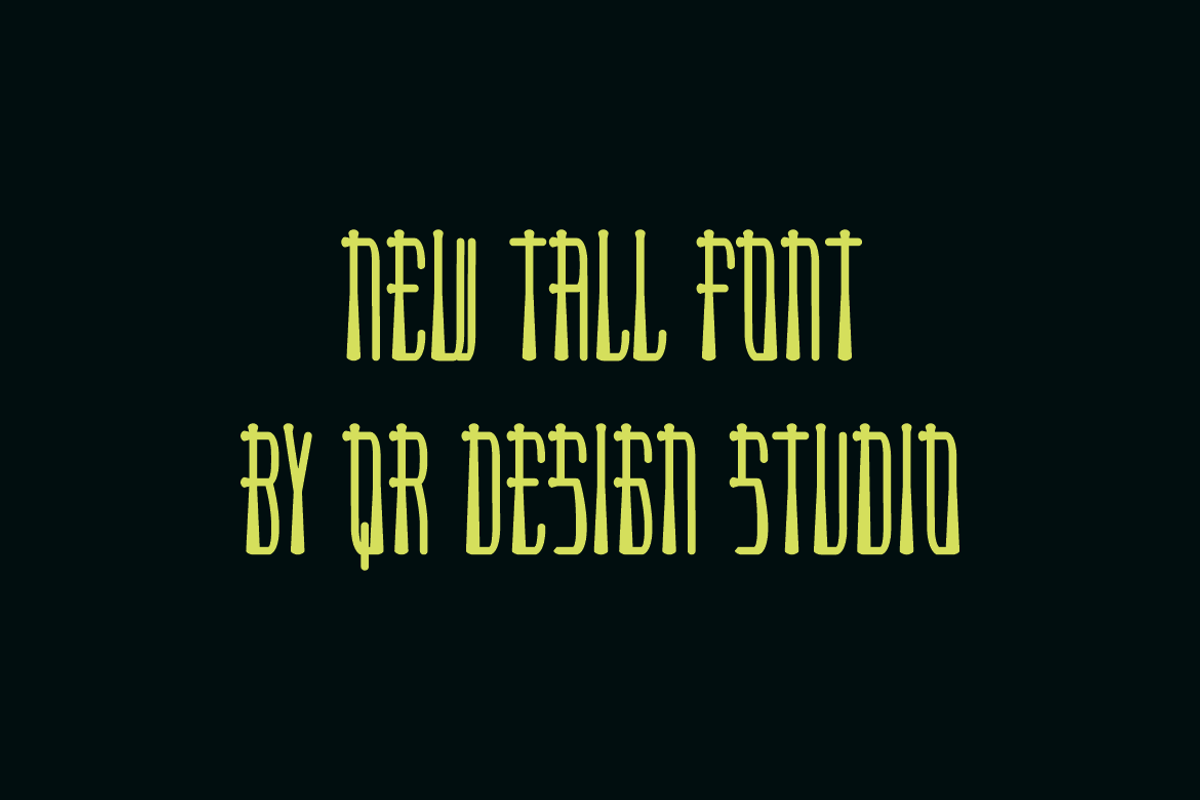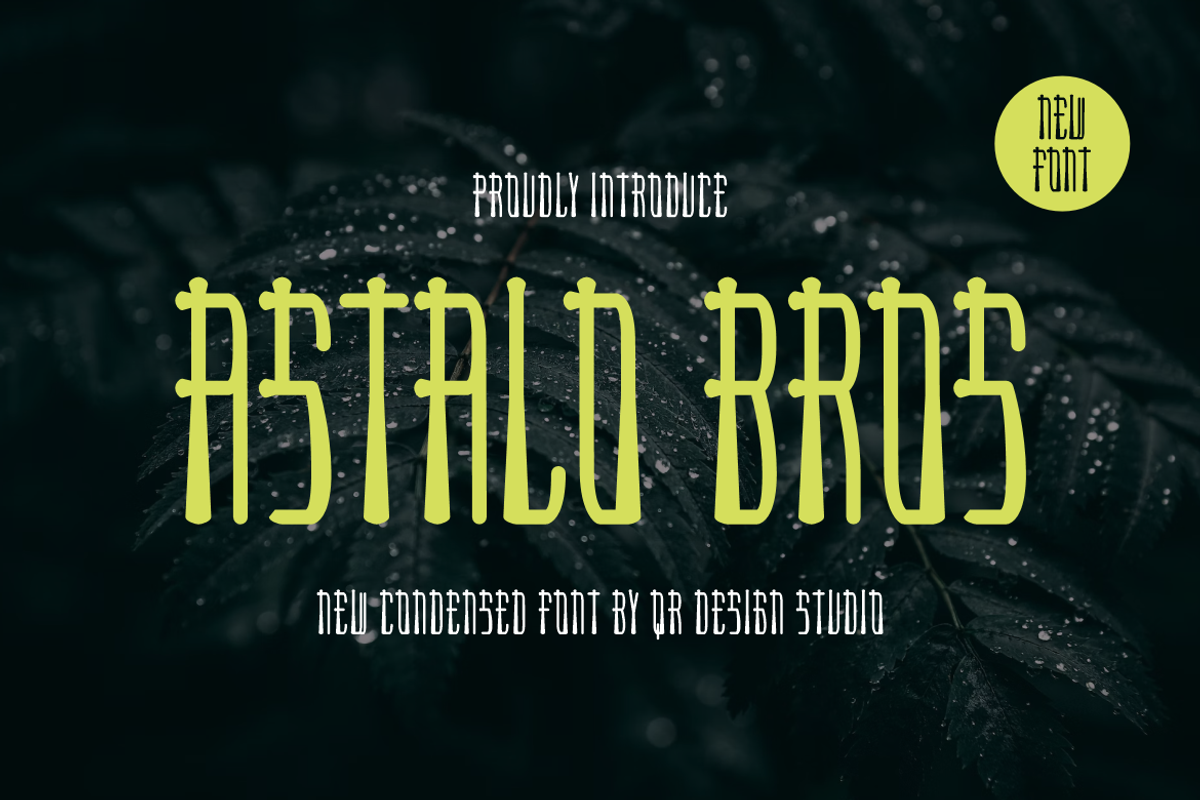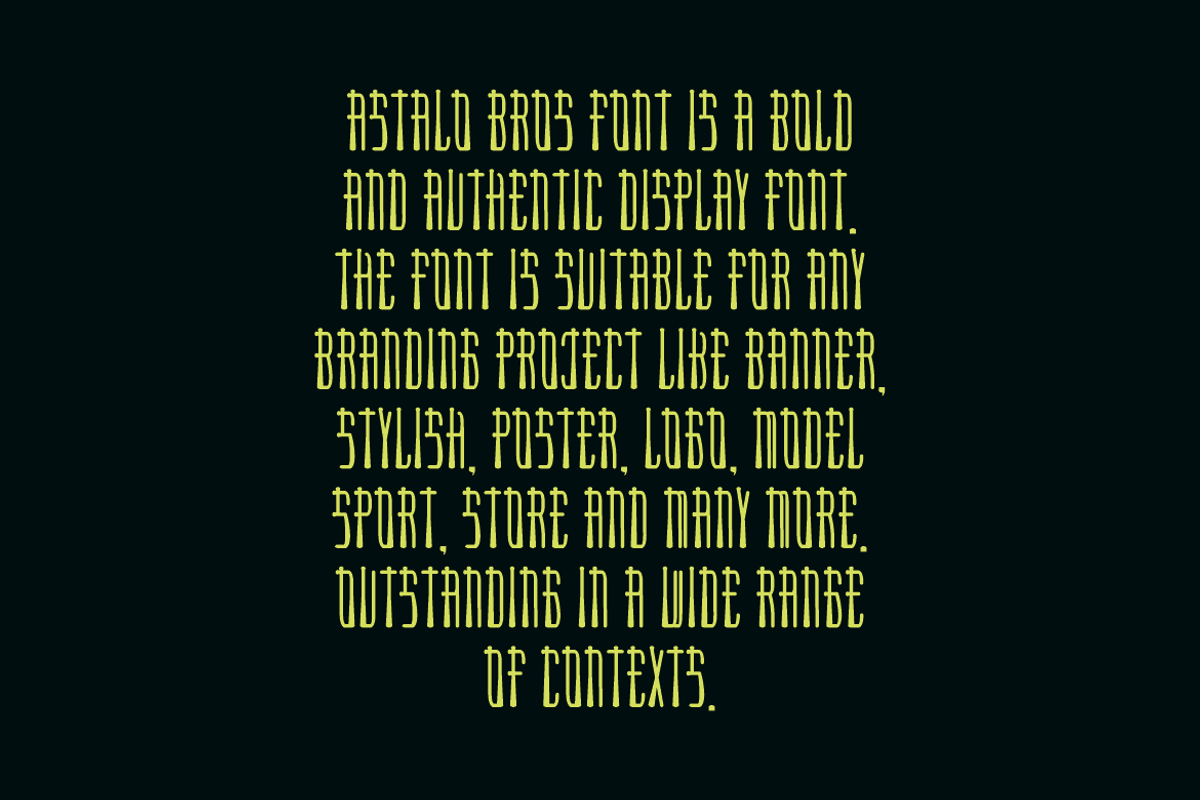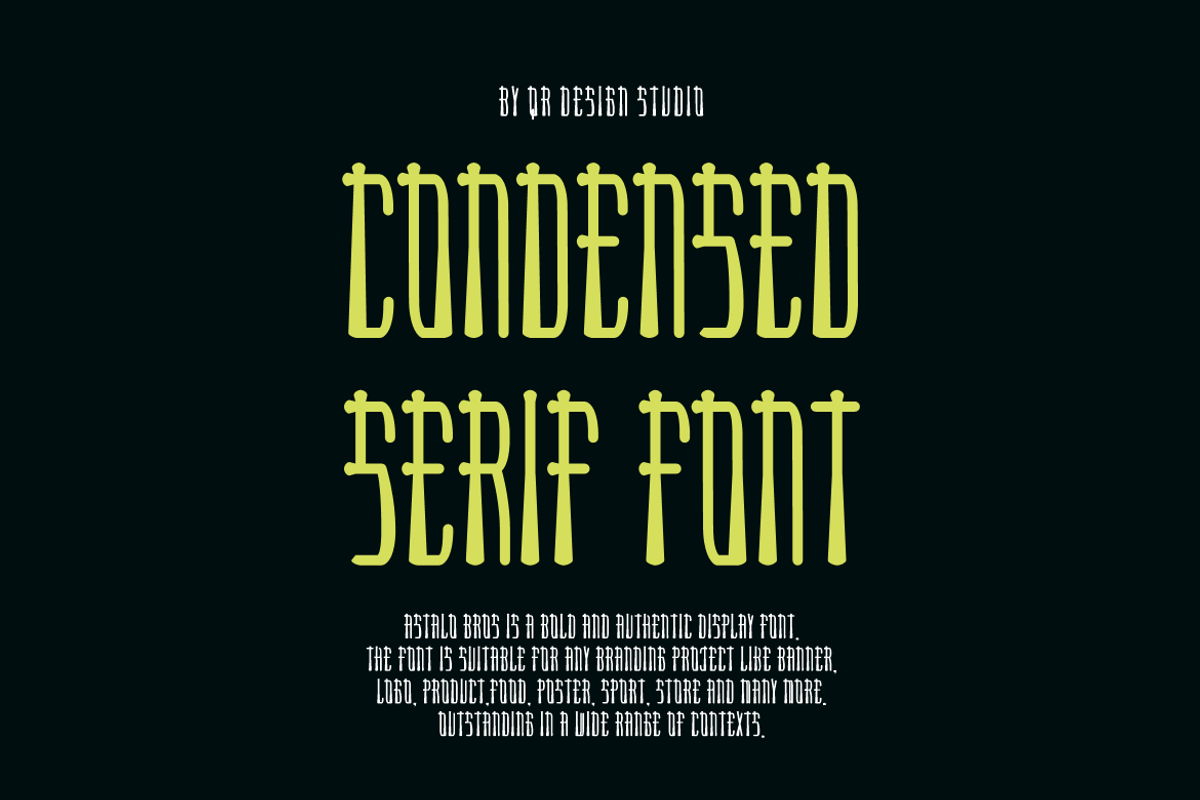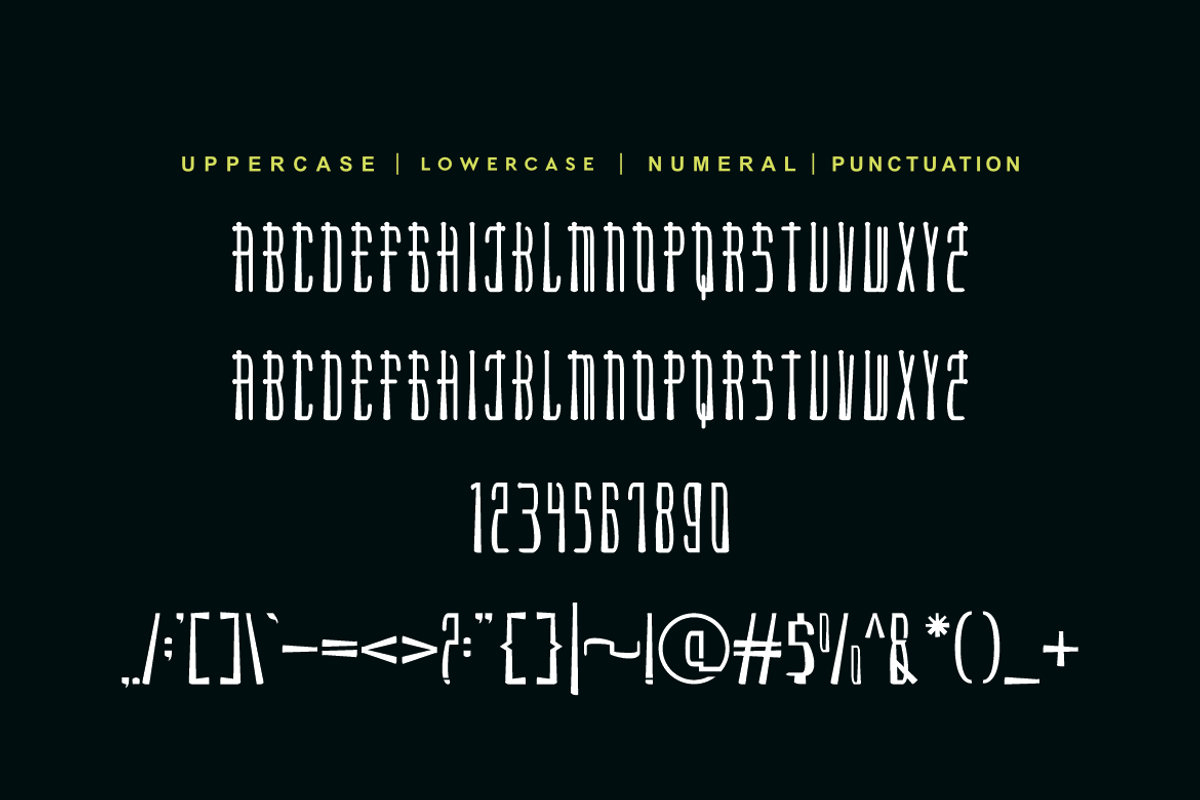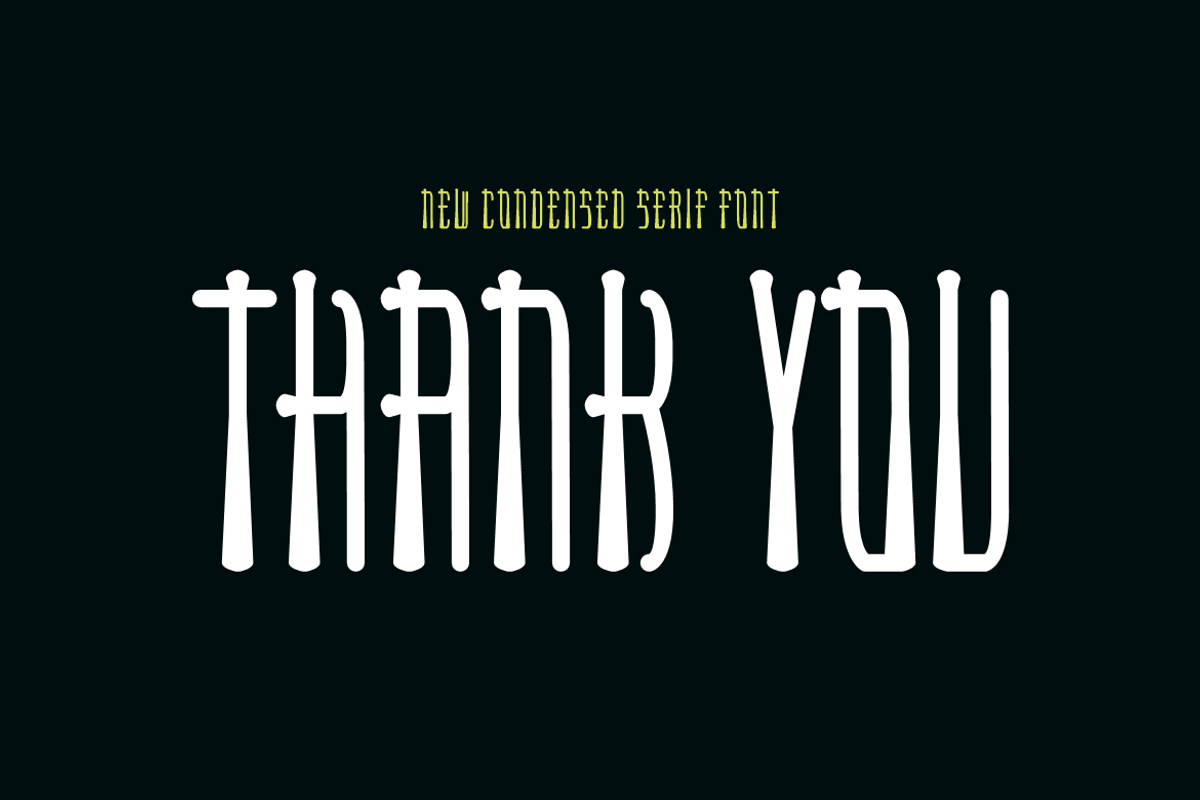
Astalo Bros
Astalo Bros Font is a bold and authentic display font. The font is suitable for any branding project like poster, logo, sport, and many more. Outstanding in a wide range of contexts.